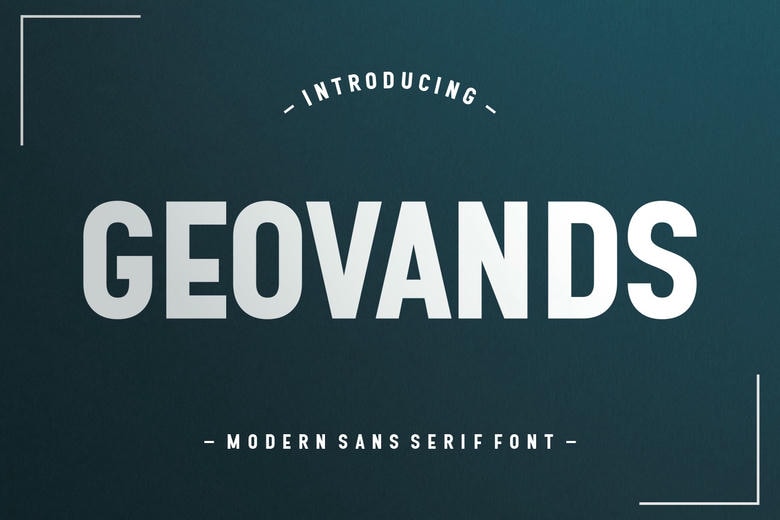
Geovands Font
Geovands is a modern sans serif font that features clean lines and a sleek design. It is easy to read and has a friendly, contemporary feel, making it perfect for various uses like websites, logos, and print materials. Its versatility and simplicity make it a great choice for both professional and casual projects.
Geovands Sans Serif Font